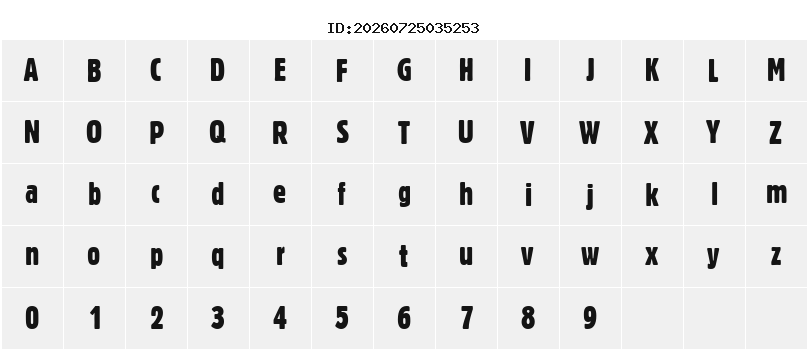
• Font Name: Gothic821 Cn BT
• Font ID: Gothic 821 Condensed
• Full Font Name: Gothic821 Cn BT
• PostScript Name: Gothic821CondensedBT-Regular
About Gothic821 Cn BT.ttf
Gothic821 Cn BT.ttf is a modern, elegant sans-serif font designed for ultimate readability and visual harmony. Perfect for branding, headlines, web design, and print materials.